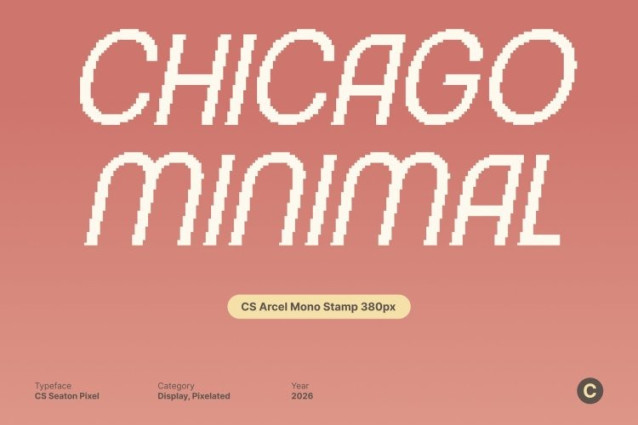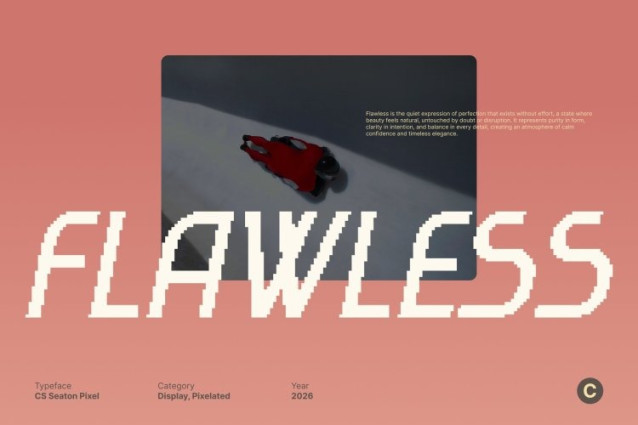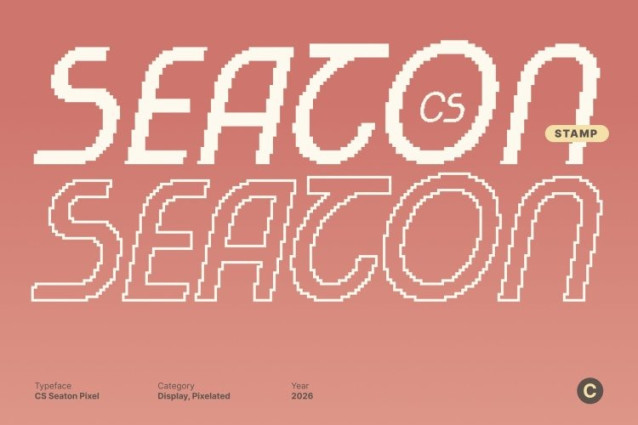
CS Seaton Pixel Font
CS Seaton Pixel Font This is a modern sans serif font reconstructed through a crisp pixel grid, transforming contemporary minimalism into bold digital clarity. Its structured geometry and clean alignment create a fresh, innovative identity while embracing the unmistakable charm of pixel typography. The result is a font that feels both modern and nostalgically digital.
Techno-Inspired Pixel Aesthetics
Subtle techno influences are amplified through sharp pixel corners and calculated block formations. The angular rhythm and modular construction give the typeface a futuristic interface-ready look, reminiscent of early computer systems, arcade displays, and digital dashboards yet refined for today’s design standards.
Clean, Crisp, and Screen-Optimized
Built on a precise pixel foundation, this font ensures outstanding legibility across digital platforms. Each letter is carefully balanced within a grid system, delivering clarity in UI layouts, web headers, app design, and tech branding. It maintains professionalism while adding a distinctive digital personality.
Perfect for Tech, UI, and Digital Branding
This font excels in technology branding, gaming visuals, startup identities, posters, website headers, and futuristic packaging. Its modern pixel construction makes it ideal for projects that want to blend contemporary minimalism with retro-digital character.